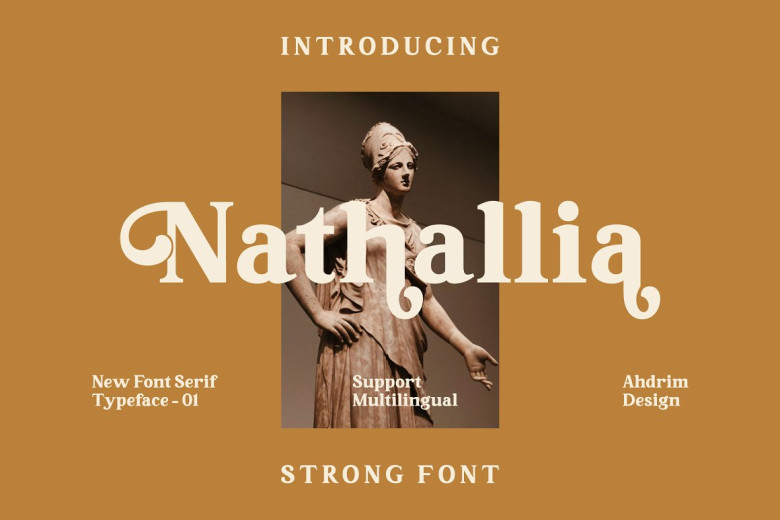
Nathallia Font
Nathallia is an elegant serif font that will add flair and impact to any design project! Use Nathallia in branding, advertisements graphic design and quotes work, wedding design logos and business photography photography, among many other tasks – it will only add more elegance and classiness to your business!
Nathallia Serif Font